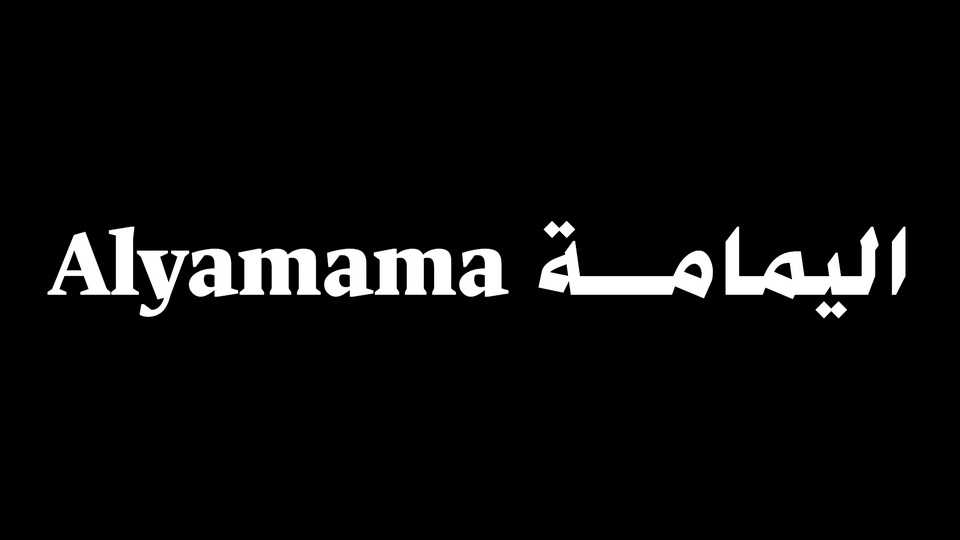
Download Alyamama font, a variable Arabic typeface with a classic Naskh design with sharp, simple strokes that provide clarity and refined contrast, making it suitable for advertising, signage, and for both headlines and body text.
Designer: Mestara Type Foundry